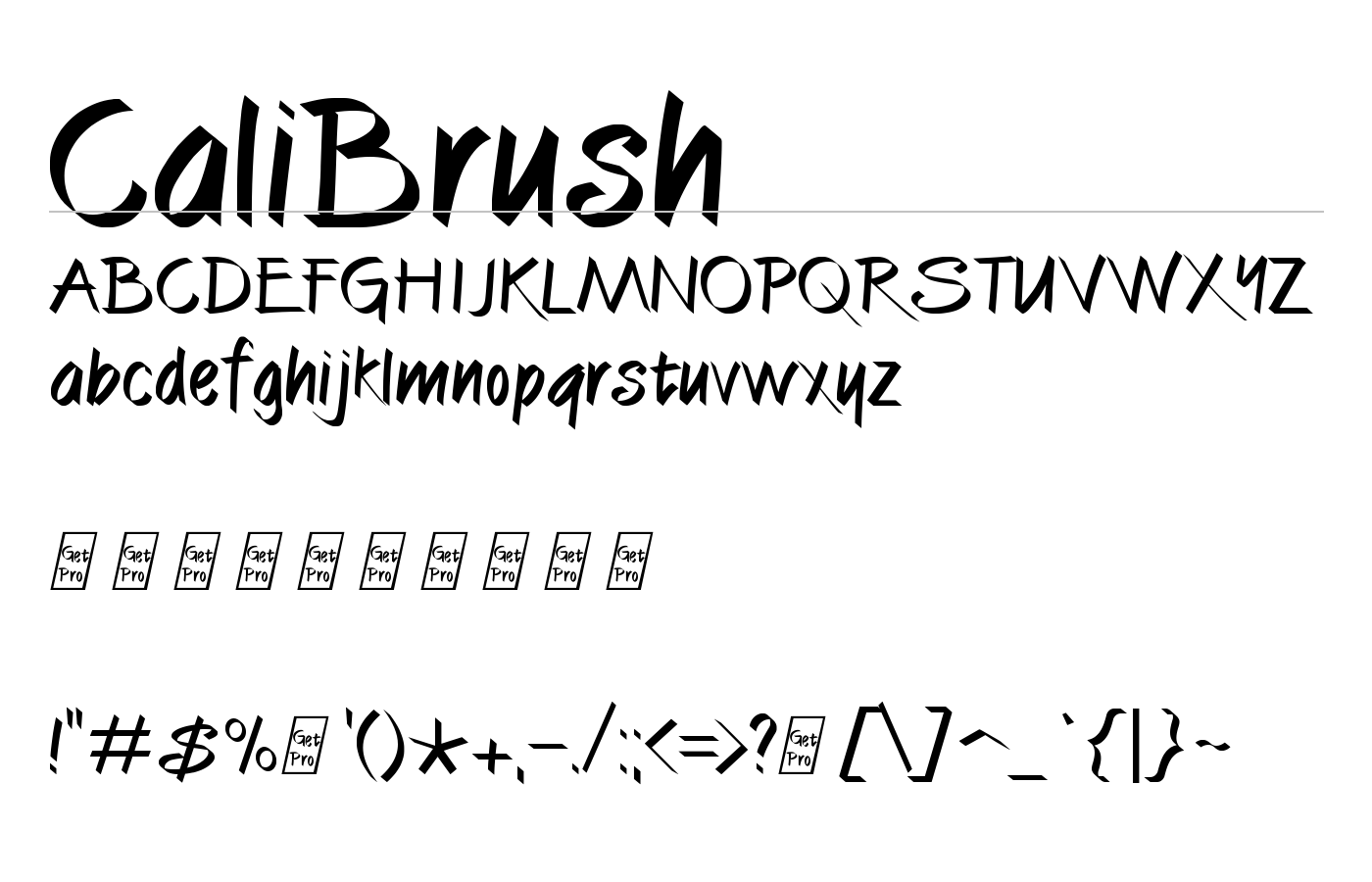
CaliBrush is an energetic and artistic brush script font characterized by its sharp, uneven strokes and casual handwritten style. It carries a lively, expressive feel that makes it ideal for creative branding, playful headlines, and informal designs where a personal, dynamic touch is desired. This font works best in projects needing a handmade, bold, and stylish vibe such as posters, logos, and packaging.
CaliBrush Font
About CaliBrush Font
| Font family | CaliBrush Font |
| Designer | MEHMET ABACI |